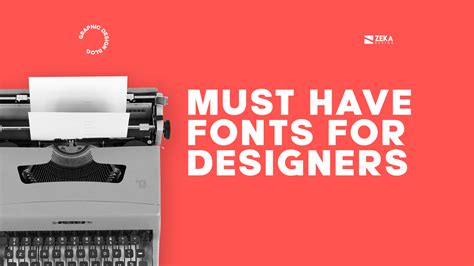
Must Have Fonts . They are also easy to read, elegant, and professional. Web these are the 10 fonts that every graphic designer should have in their collection.
They are also easy to read, elegant, and professional. By using these fonts, you can create stunning and effective designs for your projects. They are versatile, timeless, and widely used in various fields and media.
The MustHave Fonts for Graphic Designers and Font Lovers
Web these are the 10 fonts that every graphic designer should have in their collection. They are versatile, timeless, and widely used in various fields and media. By using these fonts, you can create stunning and effective designs for your projects. They are also easy to read, elegant, and professional.
Must Have Fonts - They are versatile, timeless, and widely used in various fields and media. By using these fonts, you can create stunning and effective designs for your projects. They are also easy to read, elegant, and professional. Web these are the 10 fonts that every graphic designer should have in their collection.
Must Have Fonts - They are also easy to read, elegant, and professional. Web these are the 10 fonts that every graphic designer should have in their collection. By using these fonts, you can create stunning and effective designs for your projects. They are versatile, timeless, and widely used in various fields and media.
Must Have Fonts - Web these are the 10 fonts that every graphic designer should have in their collection. They are versatile, timeless, and widely used in various fields and media. They are also easy to read, elegant, and professional. By using these fonts, you can create stunning and effective designs for your projects.
Must Have Fonts - Web these are the 10 fonts that every graphic designer should have in their collection. They are also easy to read, elegant, and professional. By using these fonts, you can create stunning and effective designs for your projects. They are versatile, timeless, and widely used in various fields and media.
Must Have Fonts - They are also easy to read, elegant, and professional. Web these are the 10 fonts that every graphic designer should have in their collection. They are versatile, timeless, and widely used in various fields and media. By using these fonts, you can create stunning and effective designs for your projects.
Must Have Fonts - They are also easy to read, elegant, and professional. By using these fonts, you can create stunning and effective designs for your projects. They are versatile, timeless, and widely used in various fields and media. Web these are the 10 fonts that every graphic designer should have in their collection.
Must Have Fonts - Web these are the 10 fonts that every graphic designer should have in their collection. They are versatile, timeless, and widely used in various fields and media. By using these fonts, you can create stunning and effective designs for your projects. They are also easy to read, elegant, and professional.
Must Have Fonts - Web these are the 10 fonts that every graphic designer should have in their collection. They are versatile, timeless, and widely used in various fields and media. They are also easy to read, elegant, and professional. By using these fonts, you can create stunning and effective designs for your projects.
Must Have Fonts - They are versatile, timeless, and widely used in various fields and media. By using these fonts, you can create stunning and effective designs for your projects. Web these are the 10 fonts that every graphic designer should have in their collection. They are also easy to read, elegant, and professional.
Must Have Fonts - Web these are the 10 fonts that every graphic designer should have in their collection. By using these fonts, you can create stunning and effective designs for your projects. They are versatile, timeless, and widely used in various fields and media. They are also easy to read, elegant, and professional.
Must Have Fonts - They are also easy to read, elegant, and professional. Web these are the 10 fonts that every graphic designer should have in their collection. By using these fonts, you can create stunning and effective designs for your projects. They are versatile, timeless, and widely used in various fields and media.
Must Have Fonts - By using these fonts, you can create stunning and effective designs for your projects. Web these are the 10 fonts that every graphic designer should have in their collection. They are versatile, timeless, and widely used in various fields and media. They are also easy to read, elegant, and professional.
Must Have Fonts - They are versatile, timeless, and widely used in various fields and media. They are also easy to read, elegant, and professional. By using these fonts, you can create stunning and effective designs for your projects. Web these are the 10 fonts that every graphic designer should have in their collection.
Must Have Fonts - They are versatile, timeless, and widely used in various fields and media. By using these fonts, you can create stunning and effective designs for your projects. Web these are the 10 fonts that every graphic designer should have in their collection. They are also easy to read, elegant, and professional.